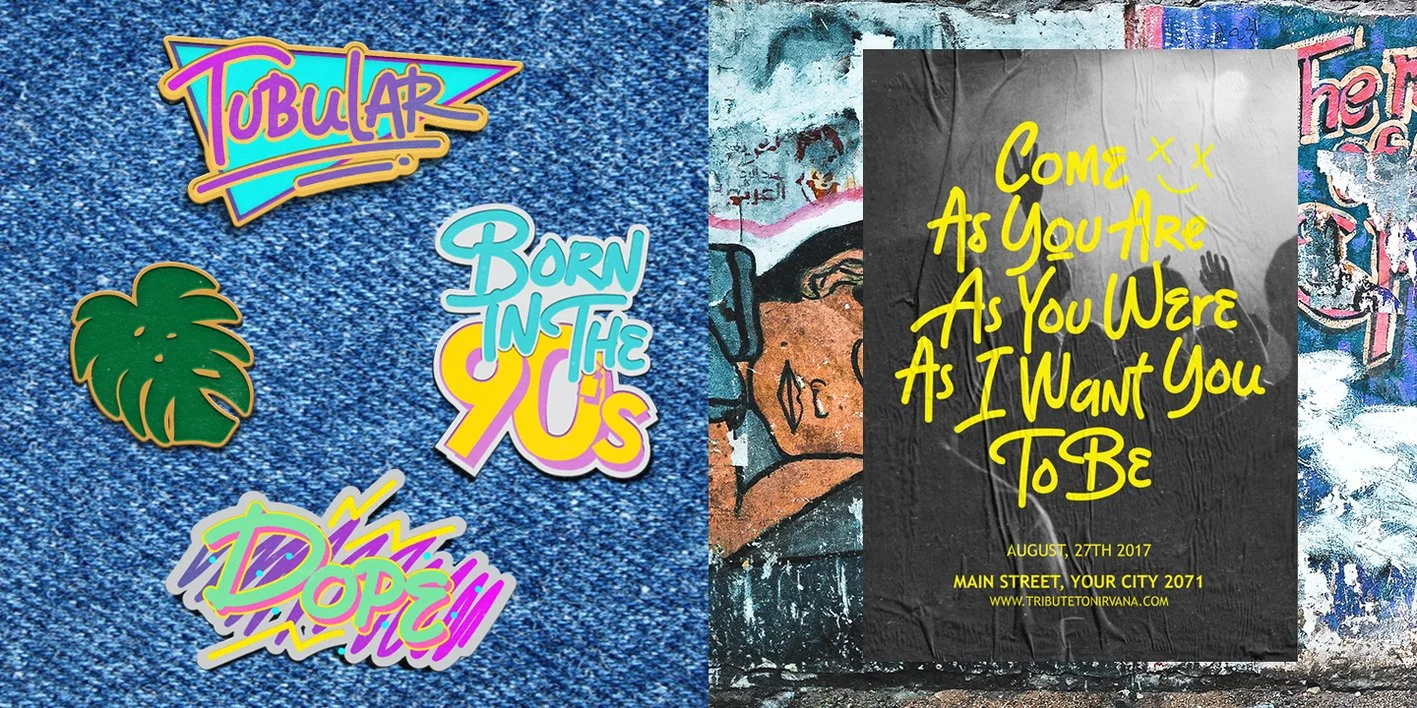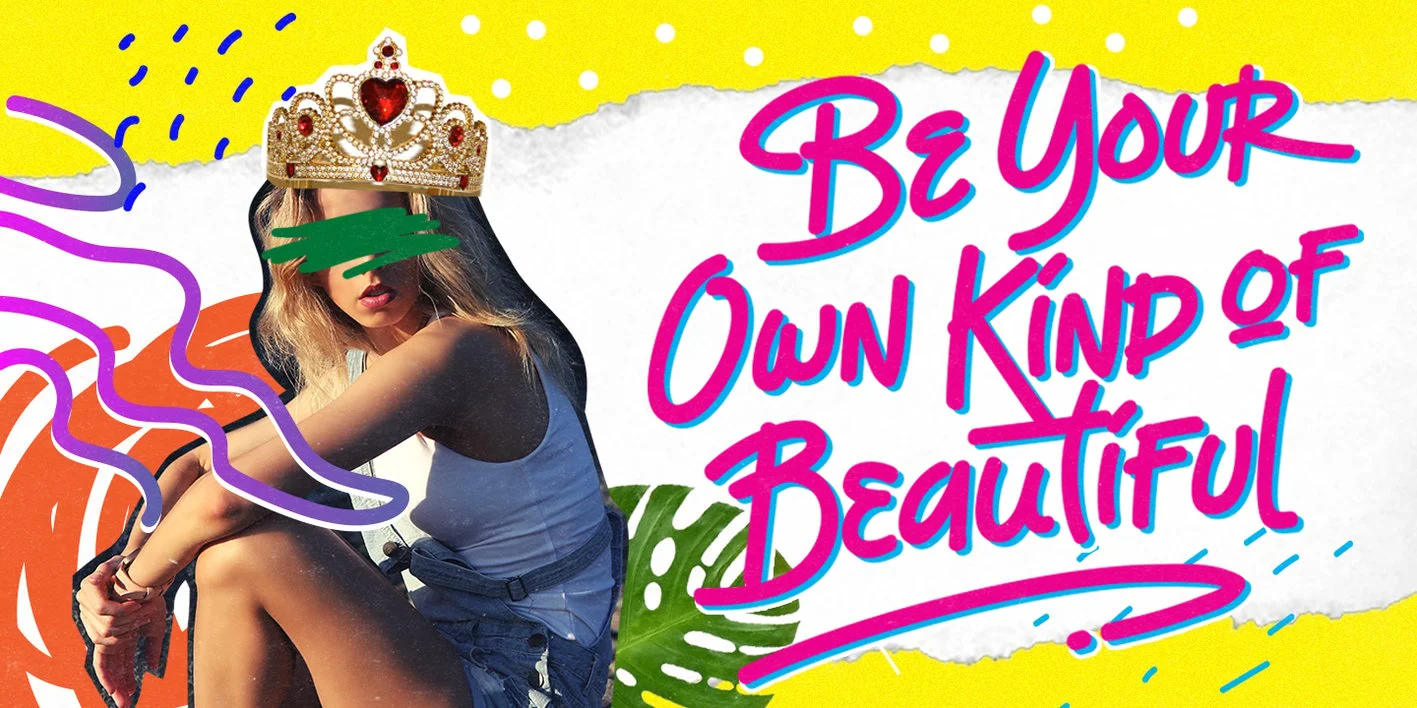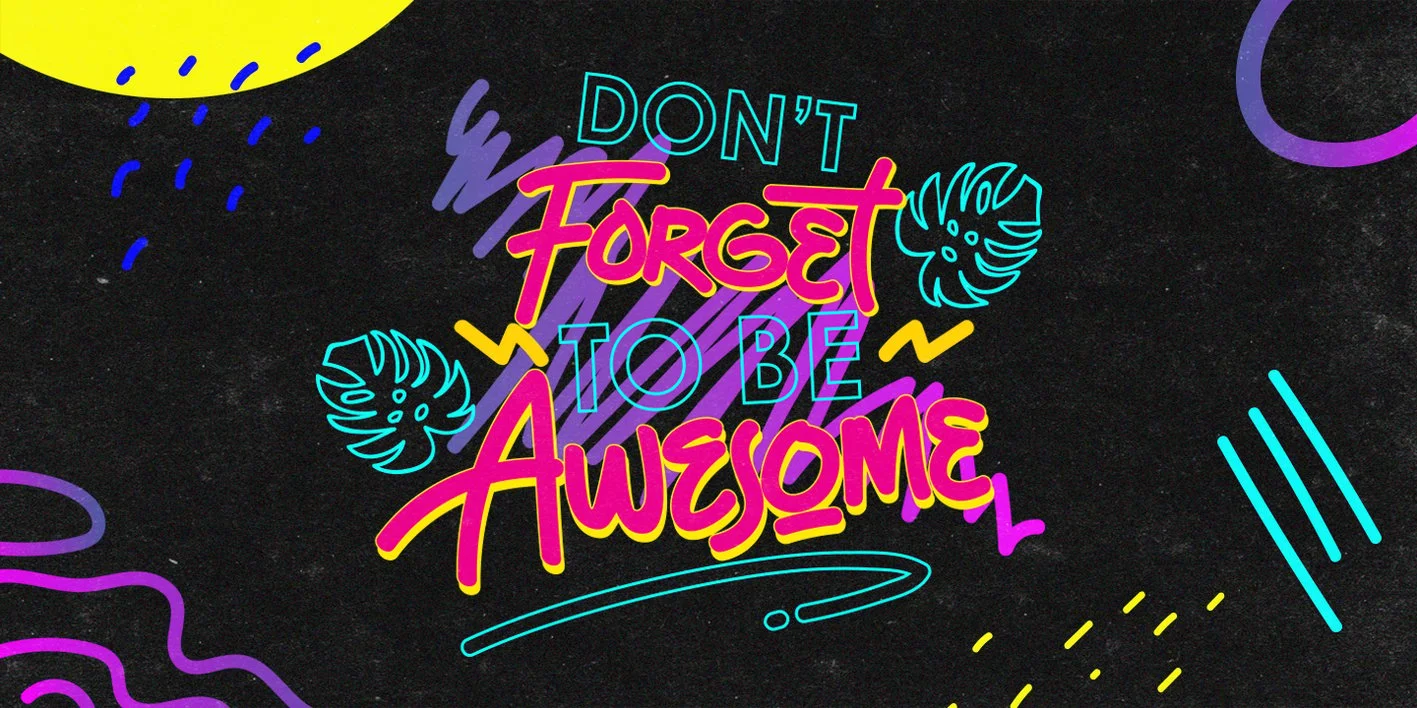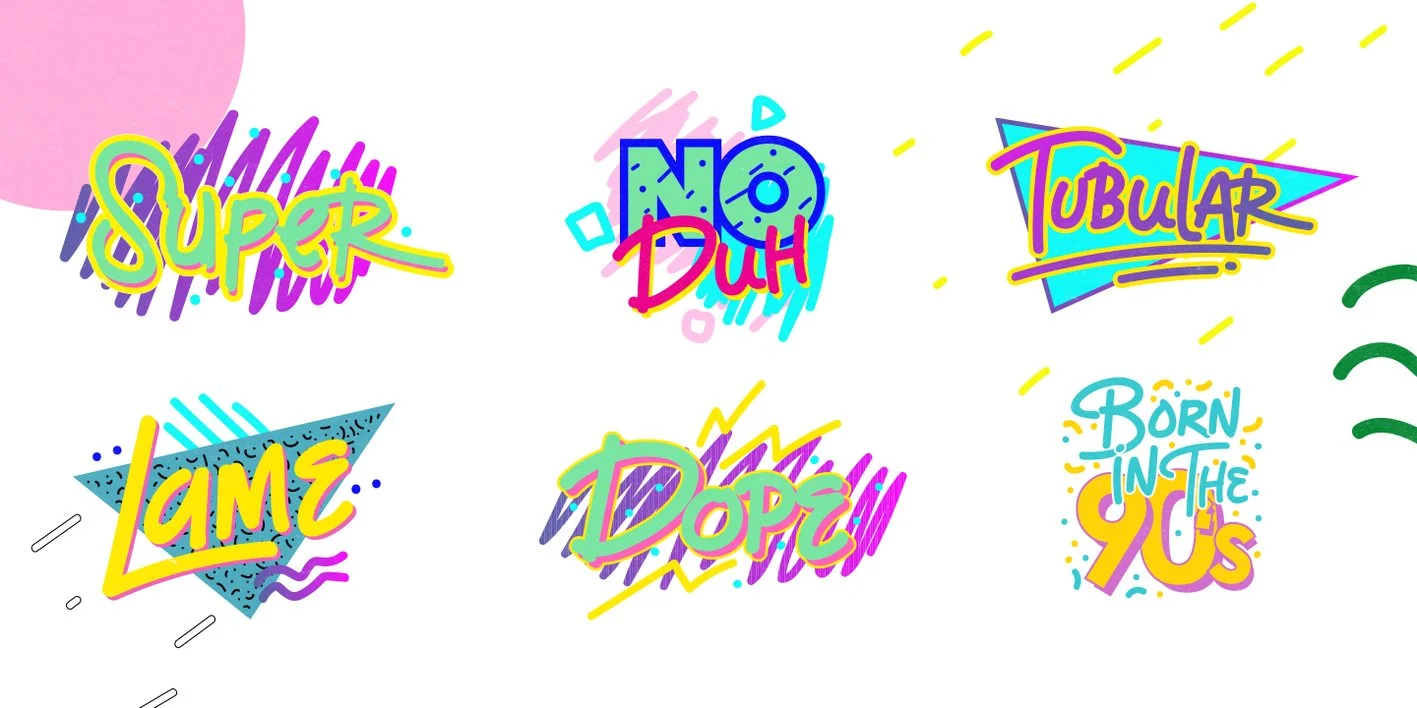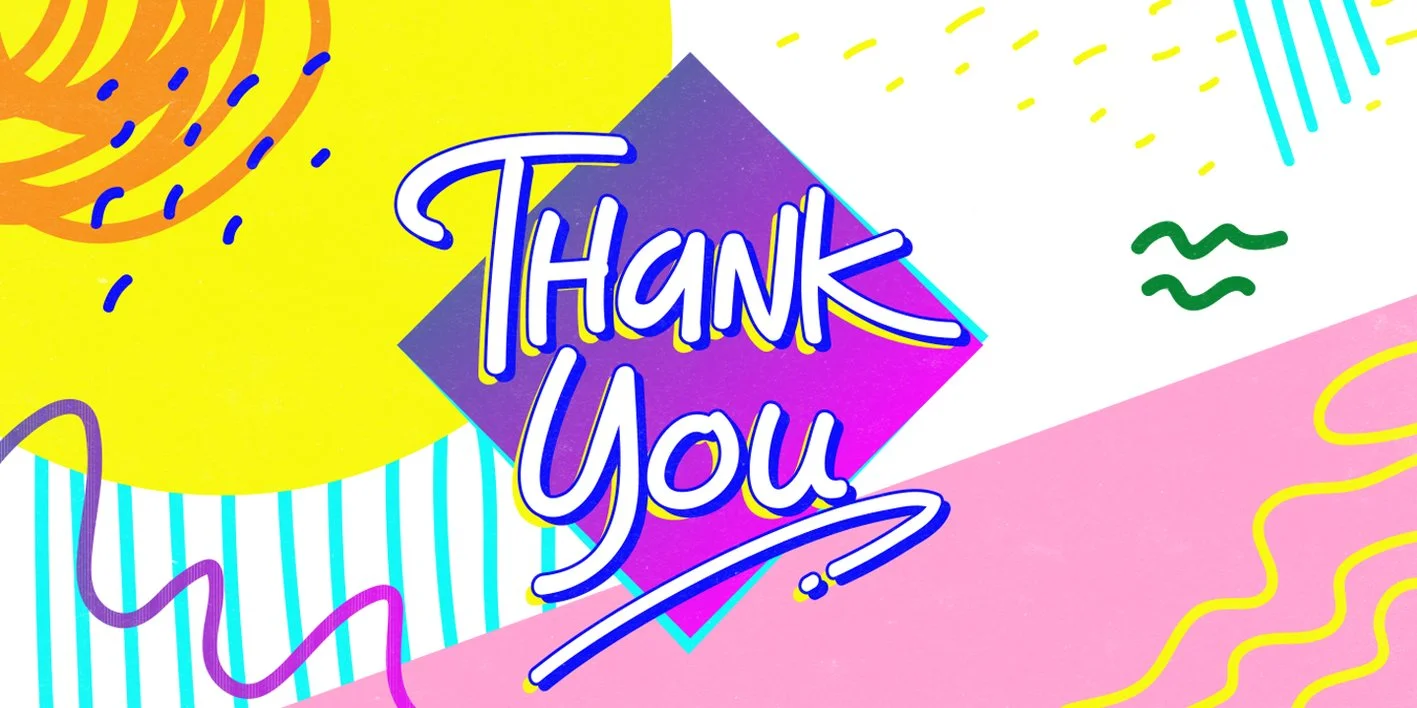
The Moonlight Font
Few typefaces manage to balance refined proportions and careful stroke modulation with genuine day-to-day practicality. The Moonlight is one of them. The typeface brings a versatile sensibility to a broad range of creative disciplines, with optical balance across all weights that holds up whether the work is print-first or screen-first.
In practice, The Moonlight proves particularly effective for logo design, web design, advertising campaigns, signage systems, annual reports. Designers reaching for it find that the type decisions feel resolved rather than laboured — a useful quality when client timelines are tight.
The range of applications extends to product labels, brand identity systems, packaging design, social media graphics. That breadth is deliberate: the proportions and spacing were stress-tested across a wide range of mock briefs before the typeface was finalised.
The Moonlight sits comfortably alongside both classic and contemporary typefaces in multi-font hierarchies. It takes direction rather than competing for attention — a quality that experienced designers know is harder to find than it appears.
Brand strategists building visual languages find The Moonlight a reliable choice for projects that demand both personality and restraint. The design avoids the self-conscious quirkiness that dates quickly, settling instead for considered distinctiveness that holds up over time.